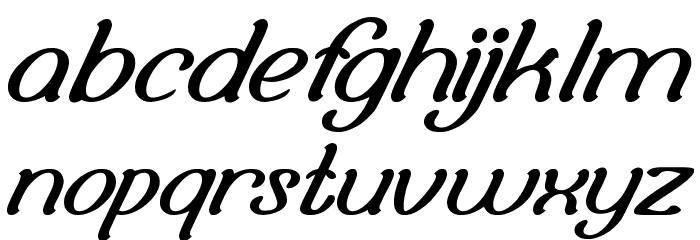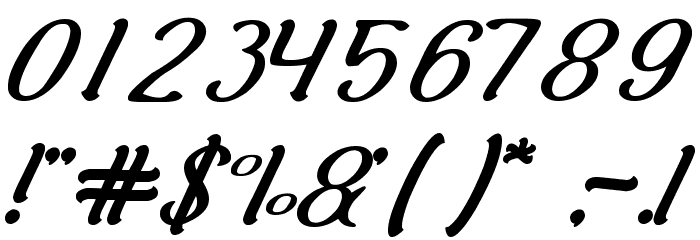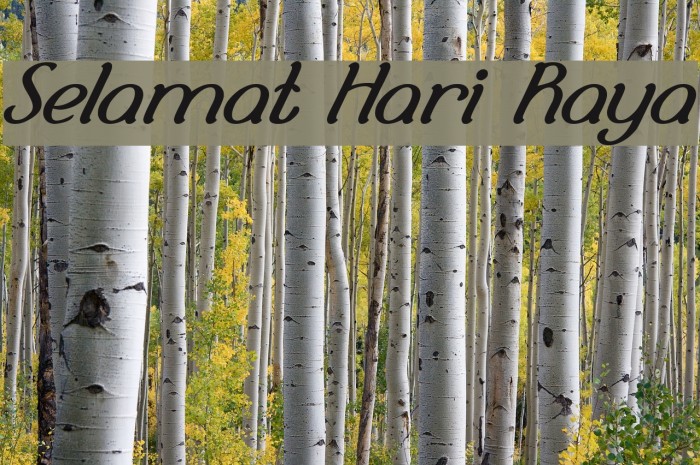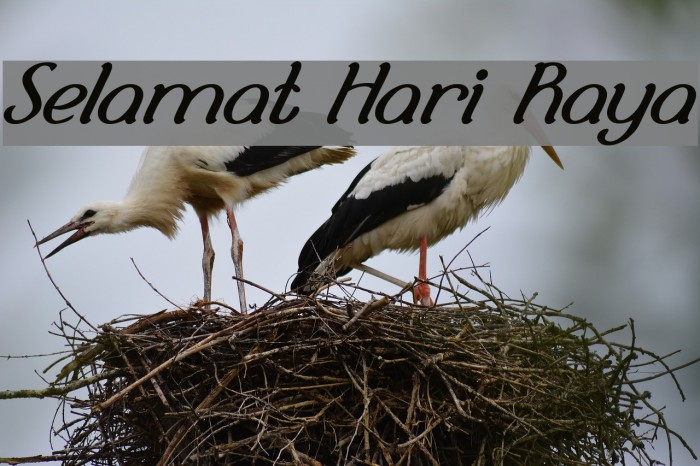
Selamat Hari Raya Font
This font features a flowing, cursive style with elegant curves and a smooth, handwritten appearance. The uppercase letters are bold and slightly slanted, giving a dynamic and lively feel. The lowercase letters maintain a consistent flow, with rounded edges and a slight slant that complements the uppercase. Numbers are clear and legible, with a similar cursive flair. Special characters are designed to match the overall aesthetic, ensuring a cohesive look across all text. The font's design is reminiscent of traditional calligraphy, yet it maintains a modern touch, making it versatile for various applications.
A cursive, handwritten font with elegant curves and a modern touch.
- Proposed Projects: Ideal for greeting cards, invitations, branding, and decorative projects.
- Use Case: Logos, Headlines, Decorative text